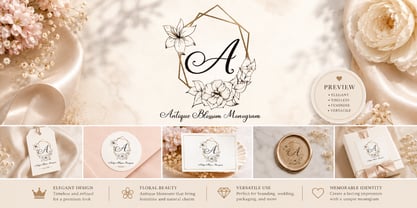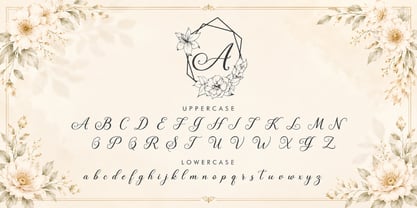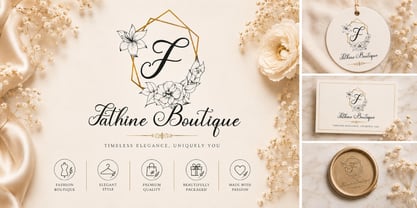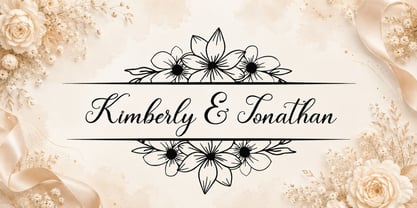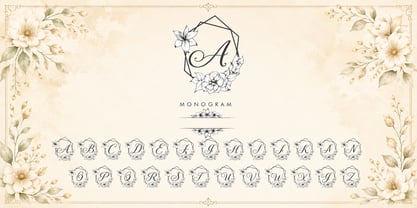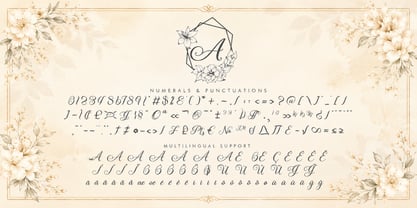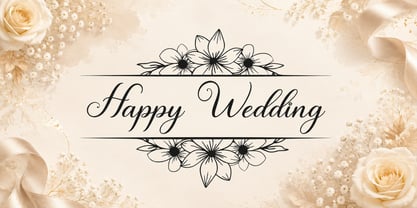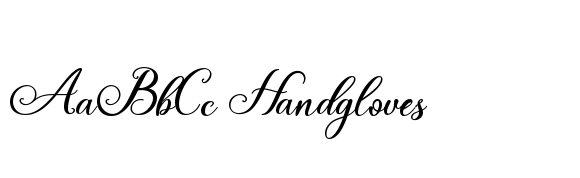
Antique Blossom Monogram
by Yoga Letter
The Antique Blossom Monogram Font Family was designed by Isroni Yoga Prasetya and published by Yoga Letter. Antique Blossom Monogram contains 1 styles. More about this family
Antique Blossom Monogram is an elegant floral monogram design that showcases timeless beauty and feminine charm. Perfect for weddings, branding, packaging, invitations, and premium stationery, this design creates a sophisticated and unforgettable identity. It features a monogram, uppercase and lowercase letters, numerals, punctuations, and multilingual support.